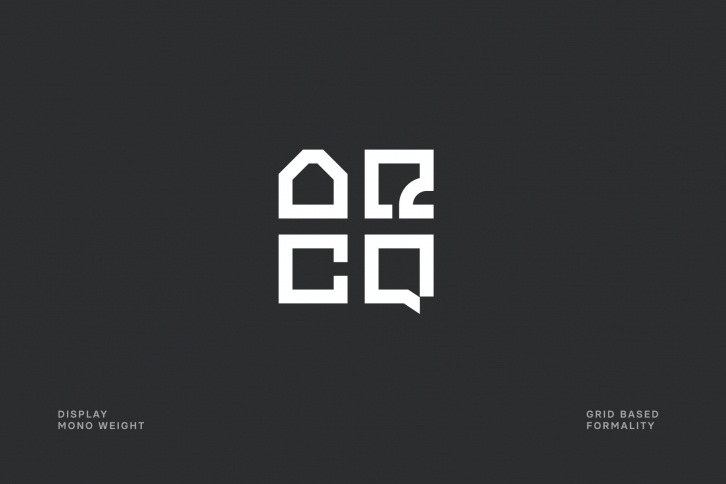
Arcq is a spacious, geometrical mono linear typeface apt for architecture, interior design, decoration, construction, landscape, co-living headline and typographic applications.
- Mono weight
- All caps and alternate